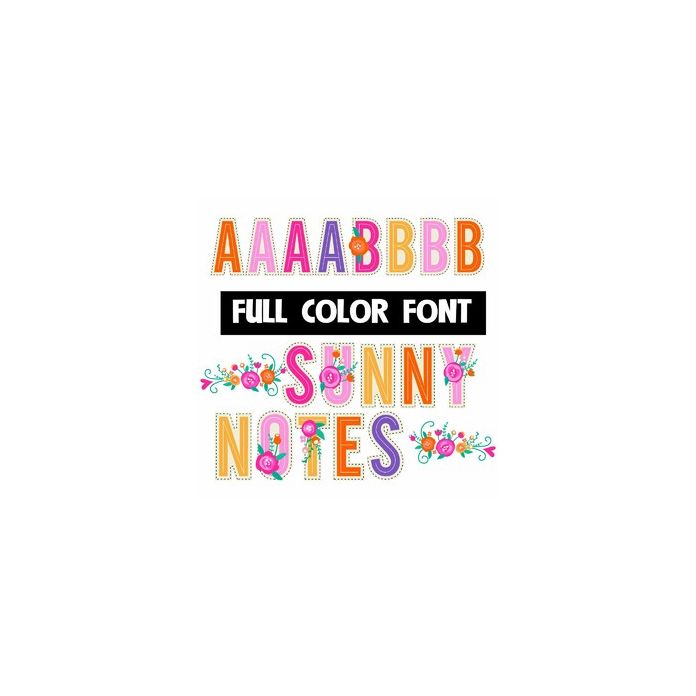
This full-color font features a sunny-color palette and flowers here and there. There is an alt upper and lowercase with additional colors that you can access through Silhouette's glyph map. Use the triangle brackets to type the pretty floral flourish.